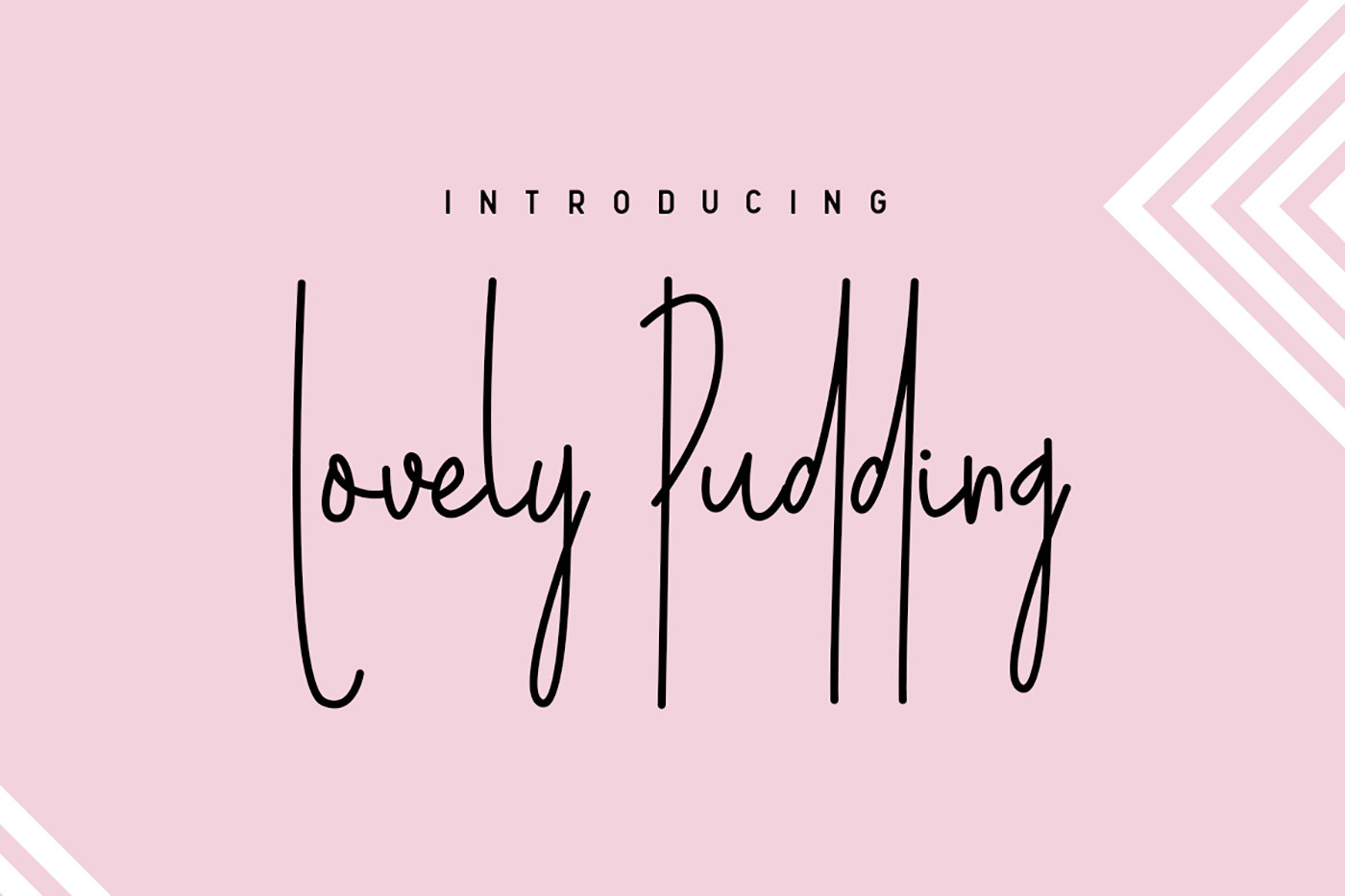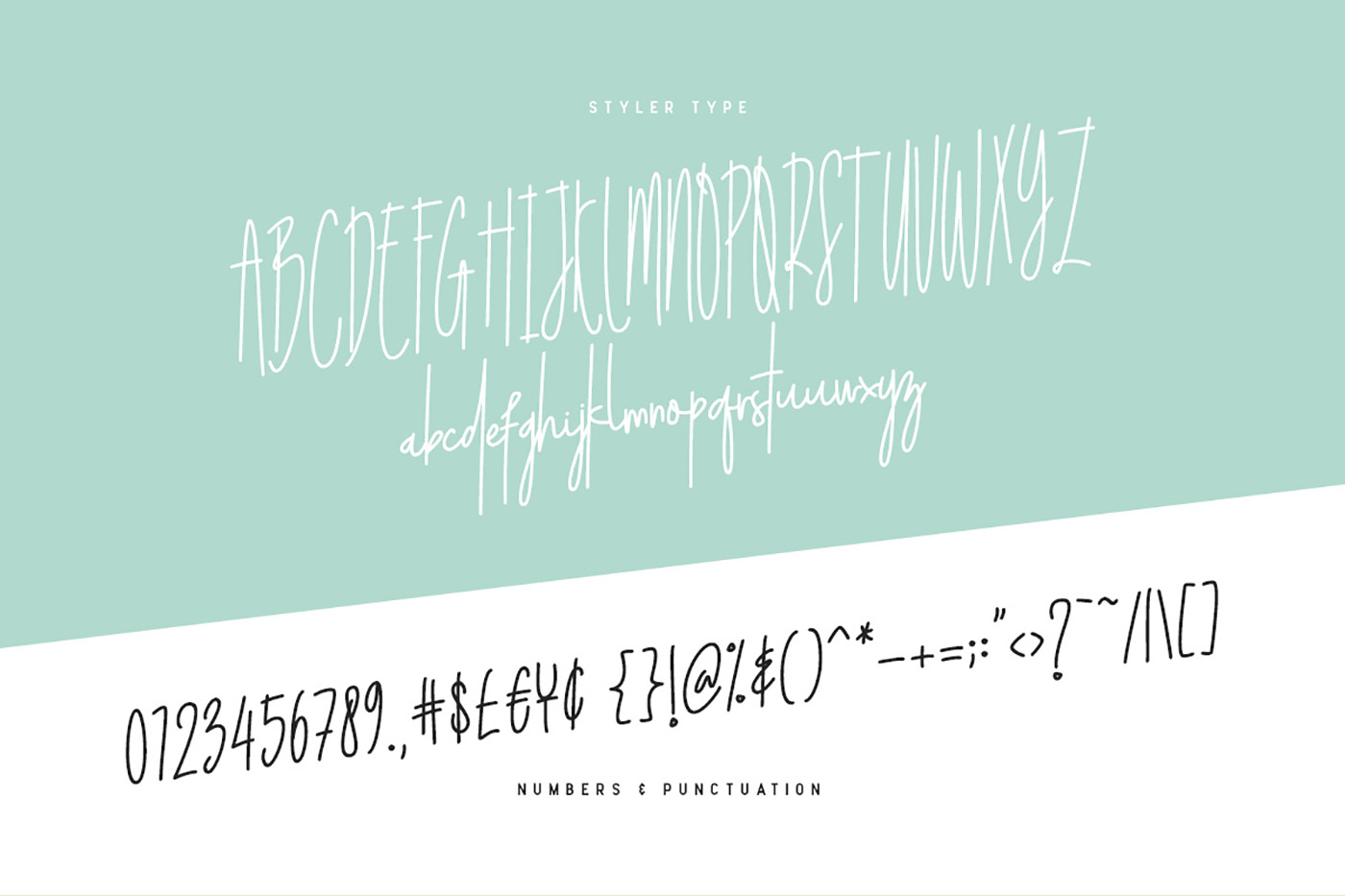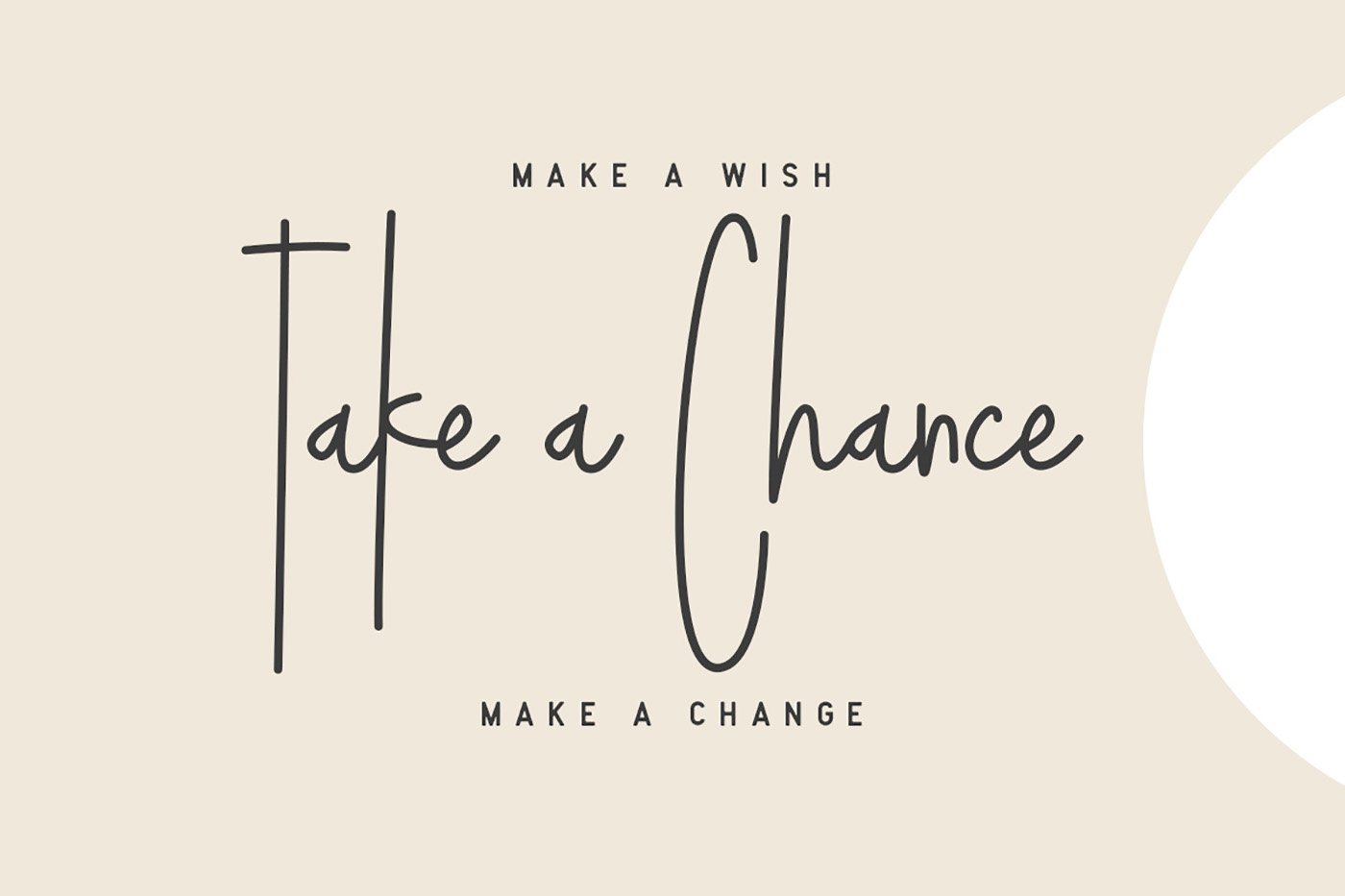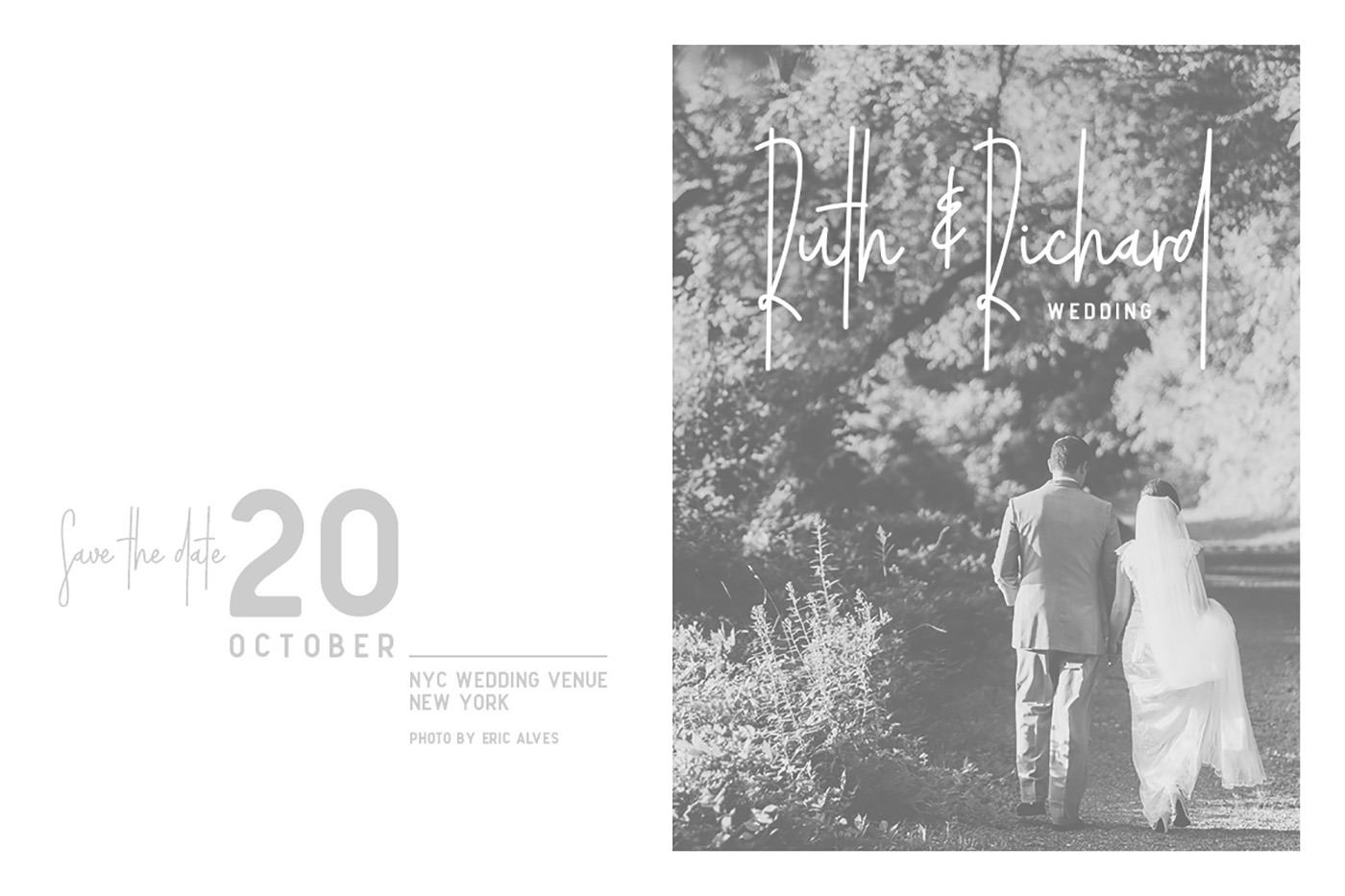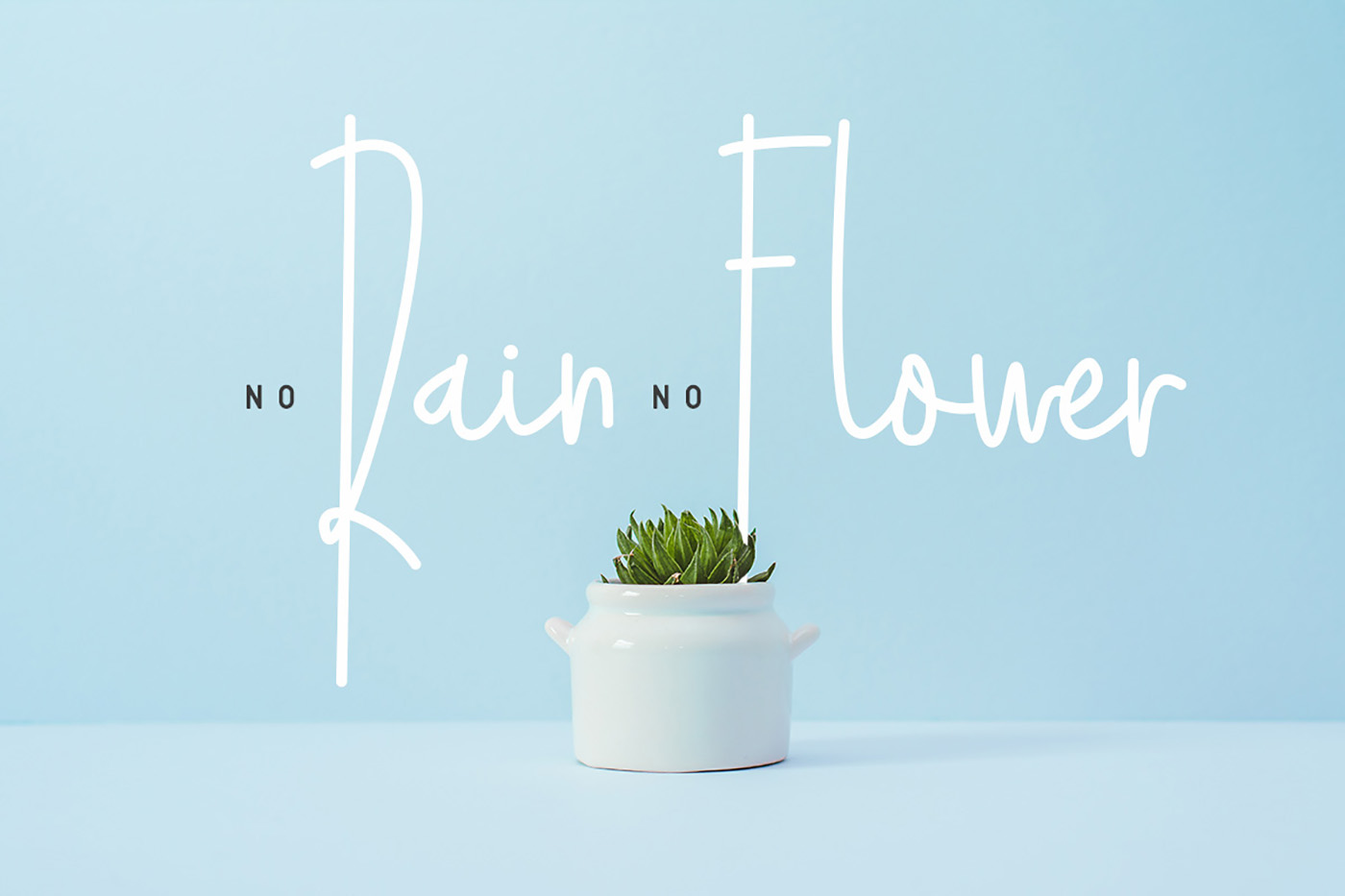
Lovely Pudding Font
About Lovely Pudding Font
Lovely Pudding is a charming and quaint font, suitable for any project or design that needs added warmth and coziness. With exaggerated height and a casual stroke, Lovely Pudding is a font you’ll use time and time again.